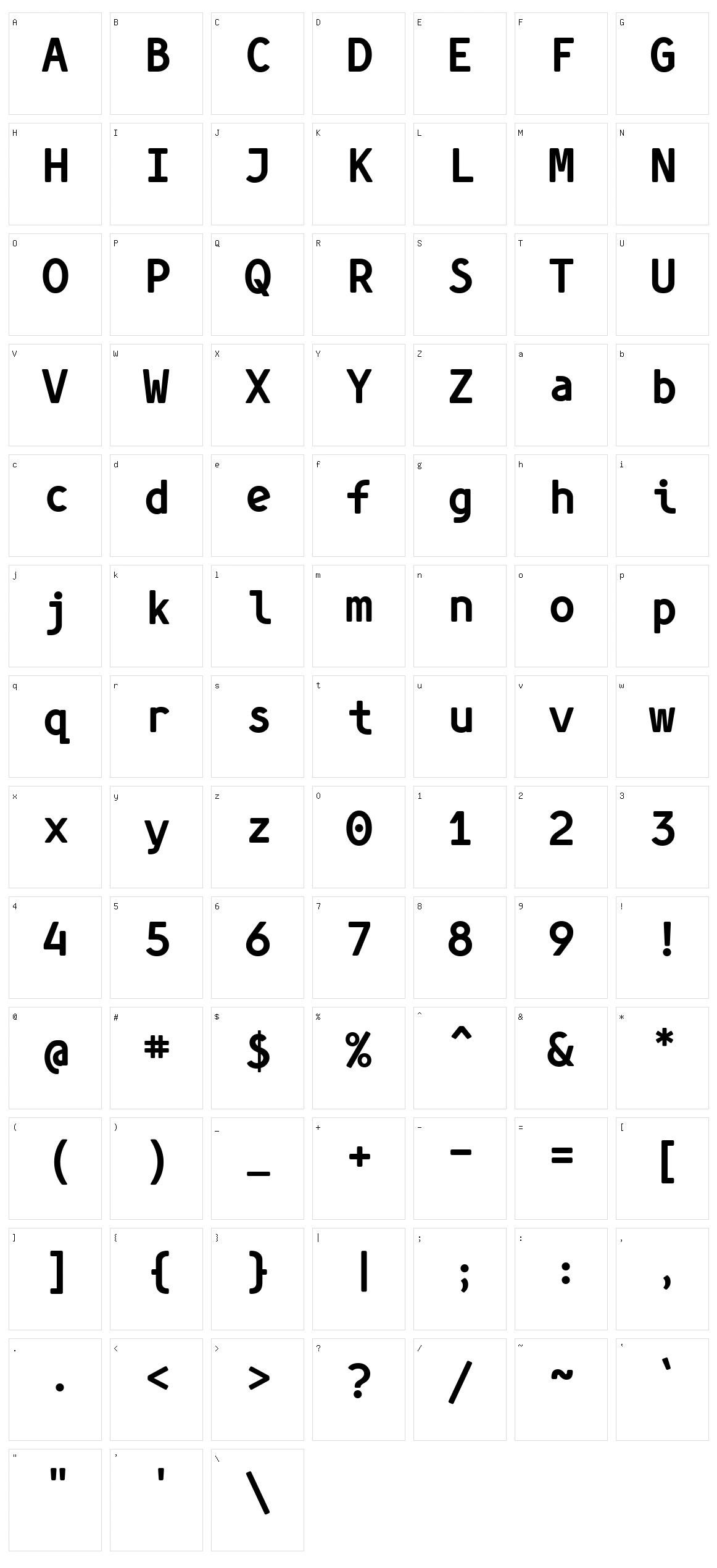
Simply Mono
Designed by: Wojciech Kalinowski
Category: Fixed width
"SimplyMono" Font is a Unicode typeface family that supports all languages
that use the Latin script and its variants, and could be expanded to support
other scripts.
Third part of Simply family - simply monospaced font.